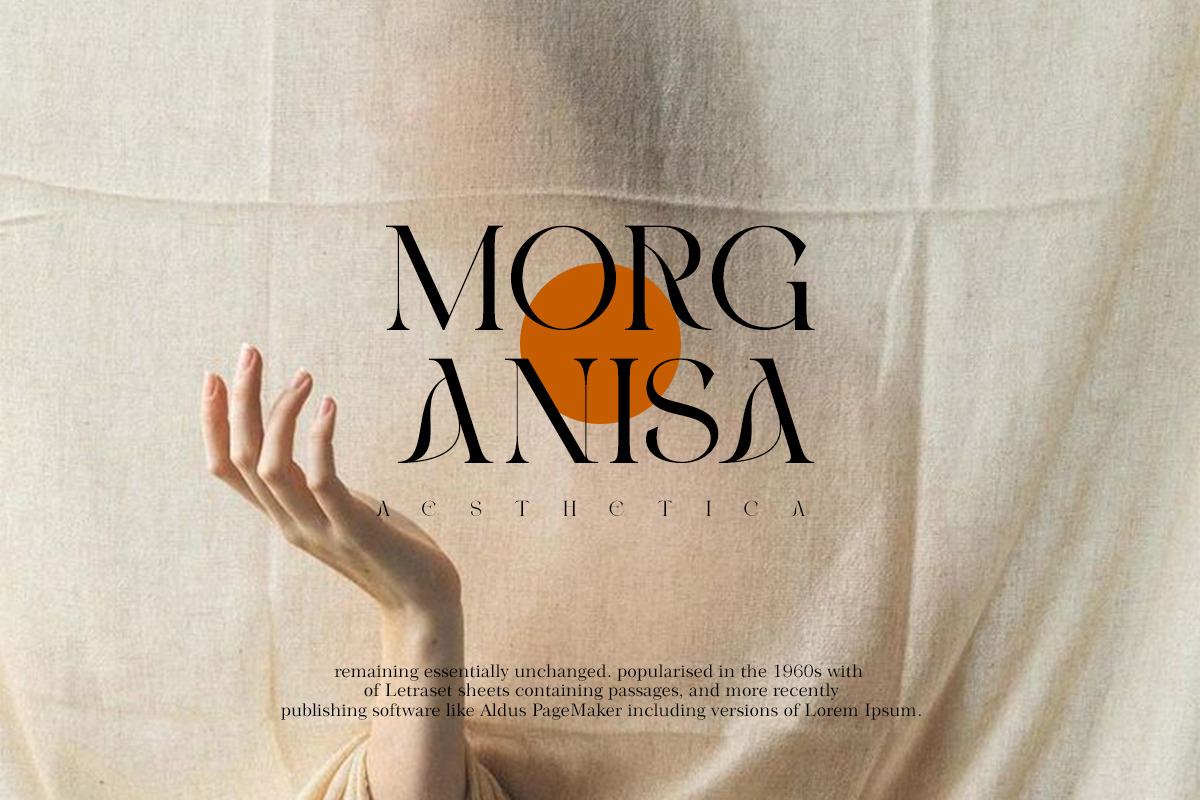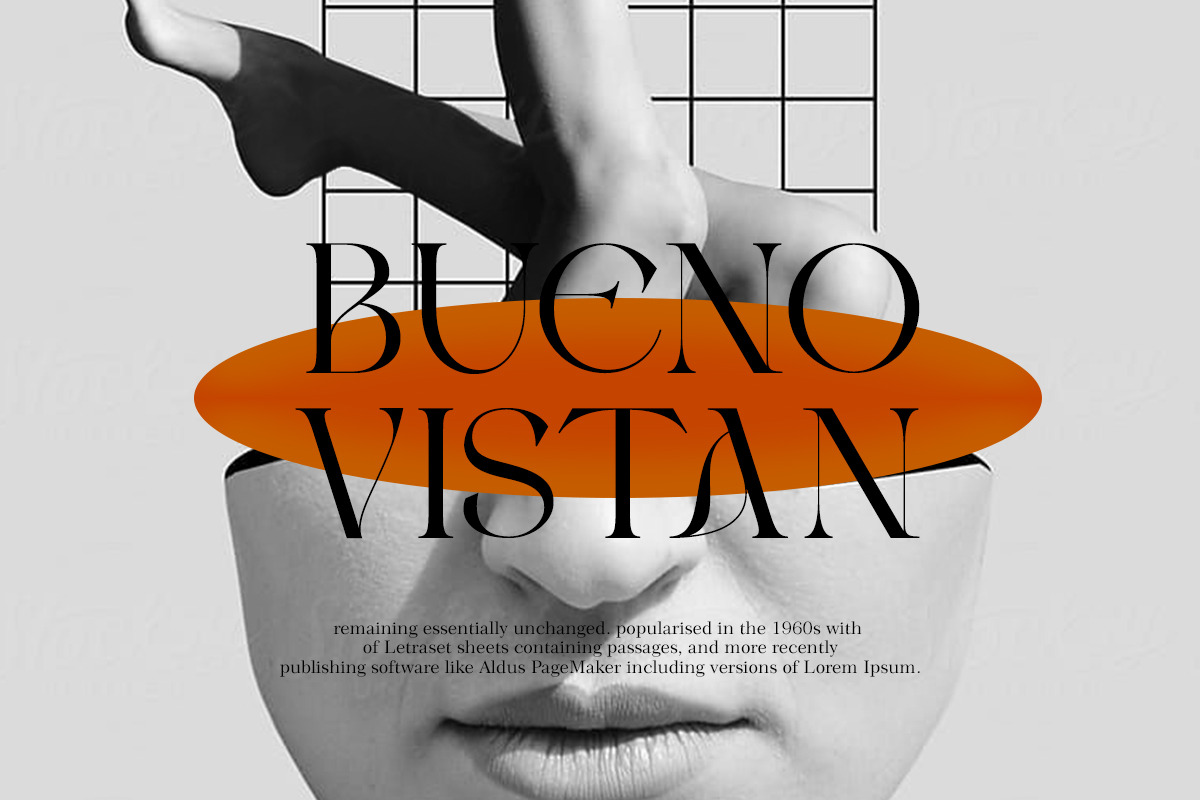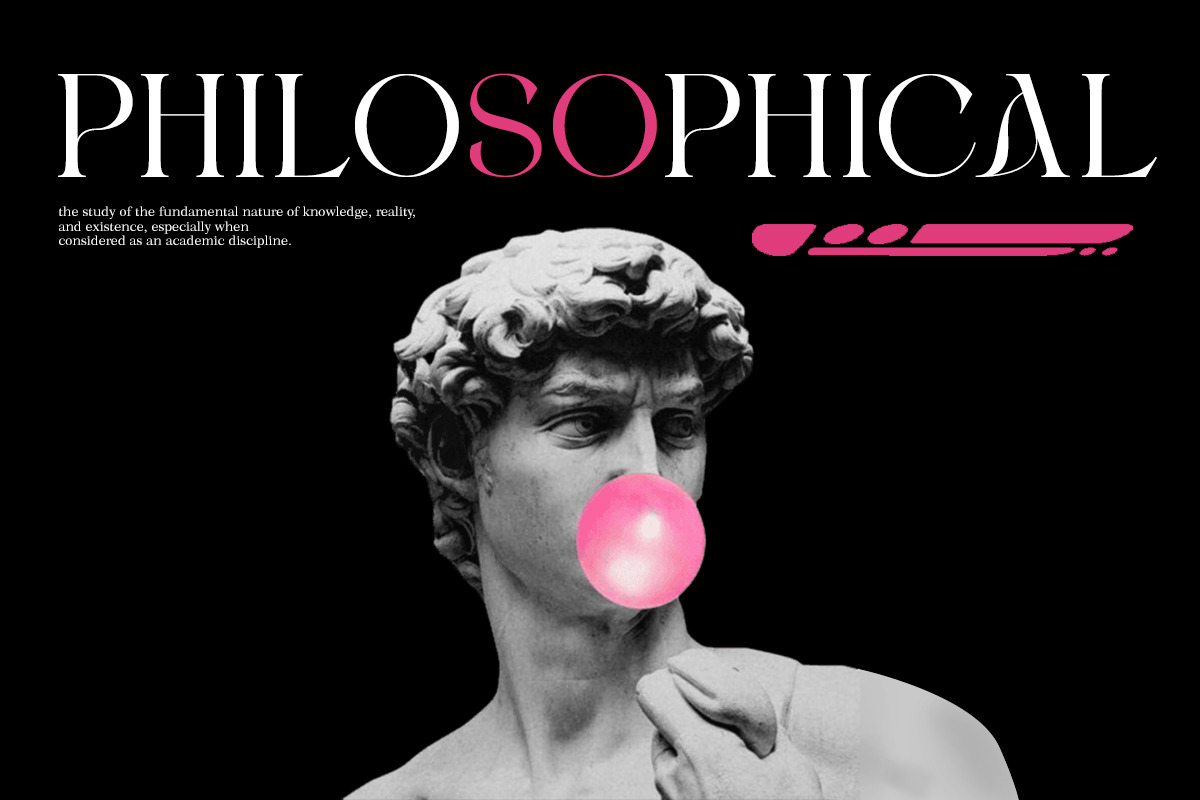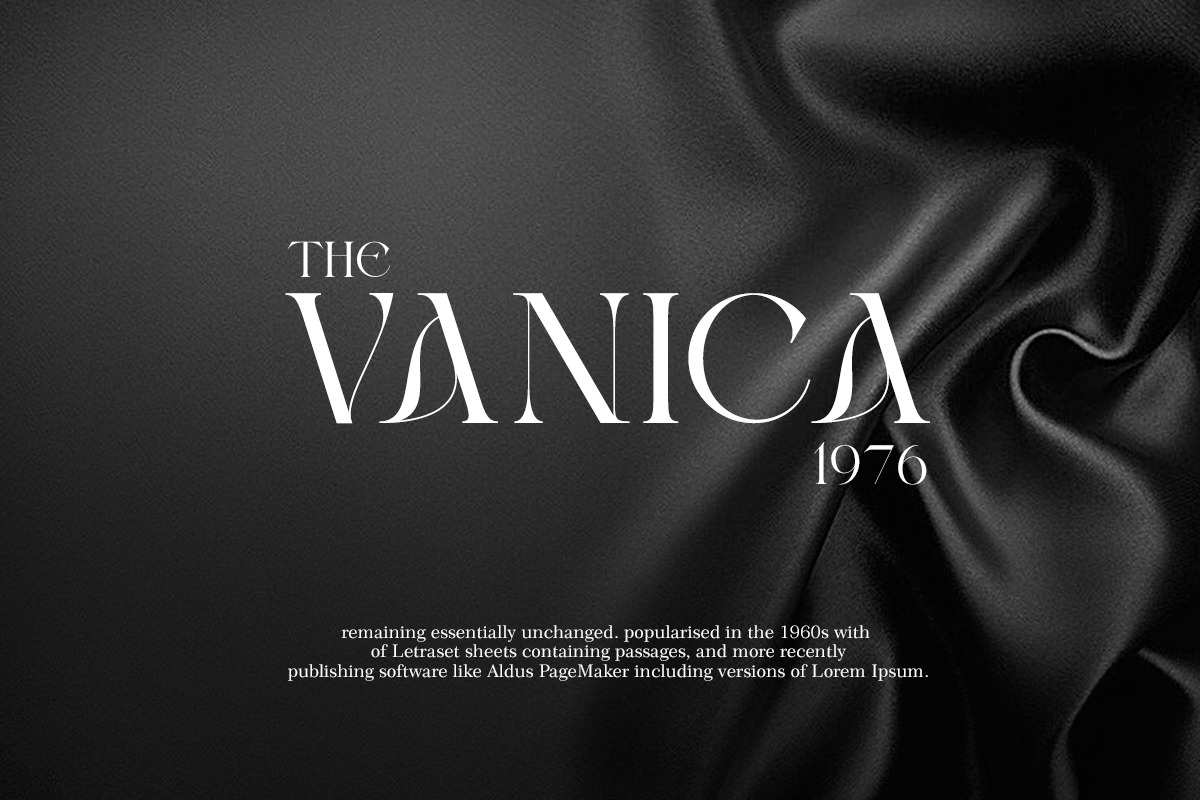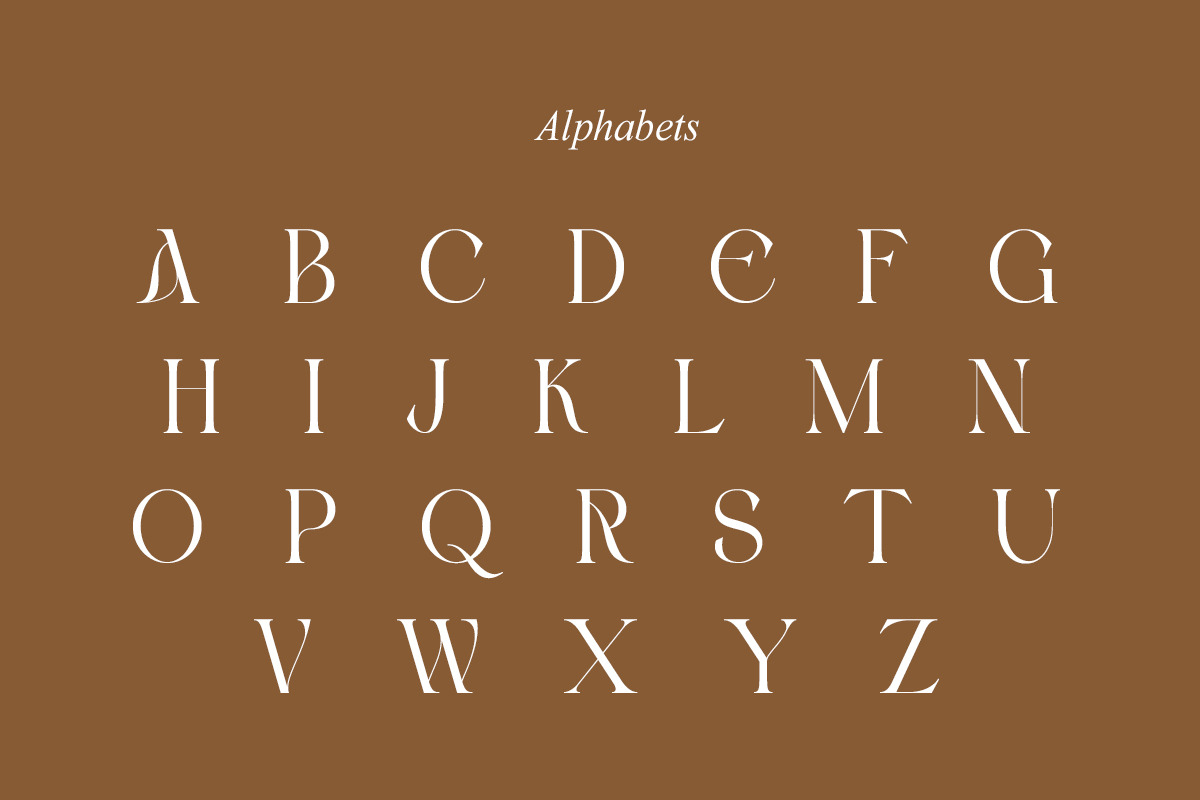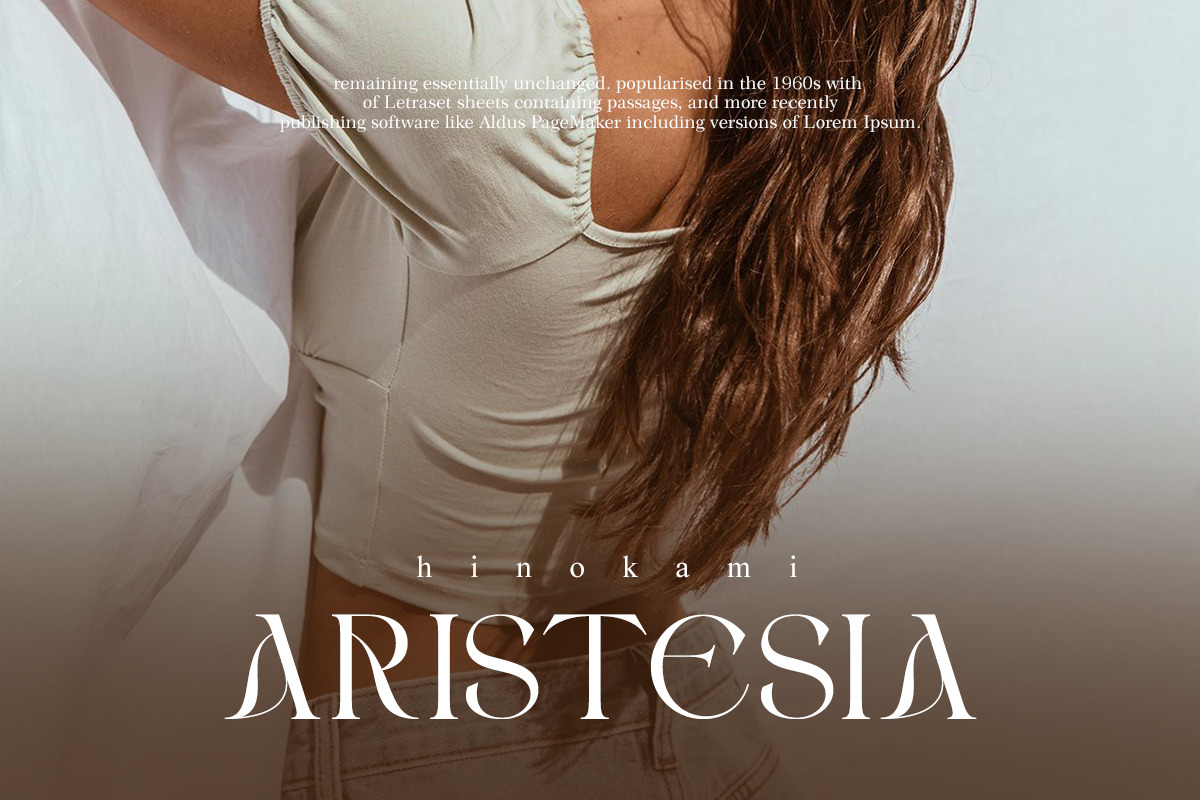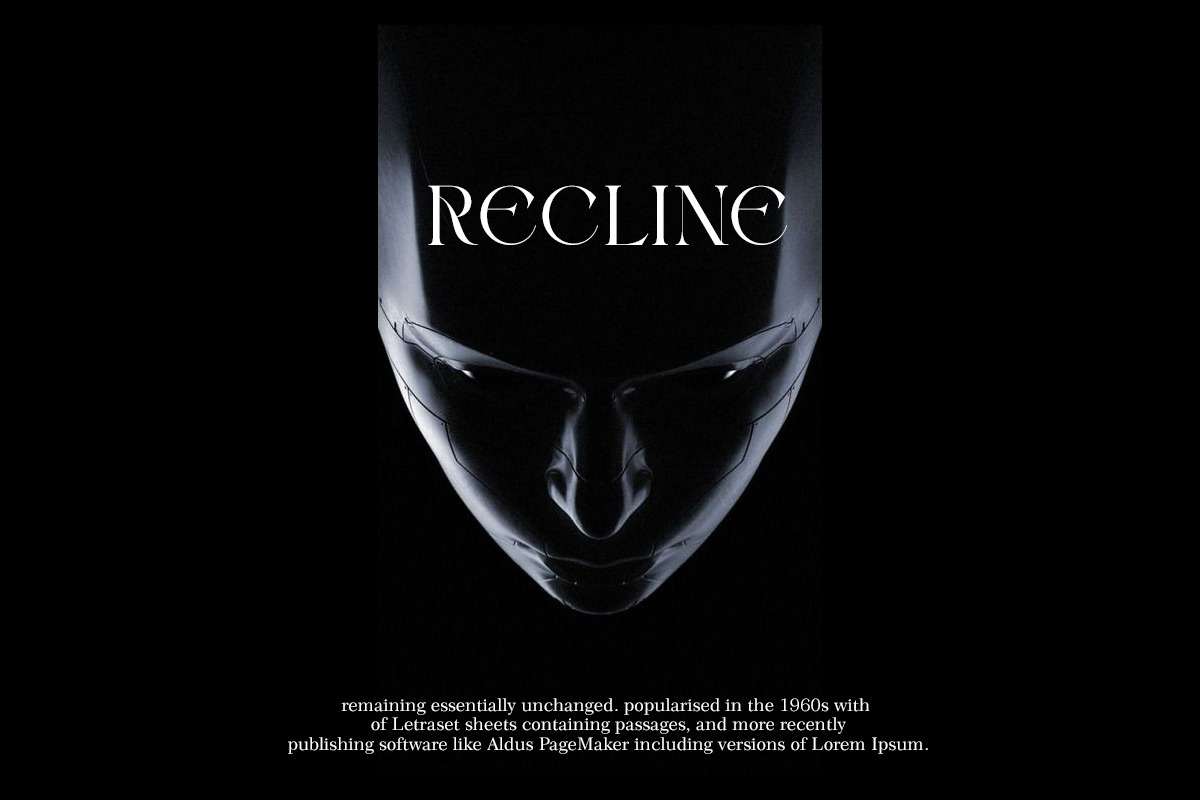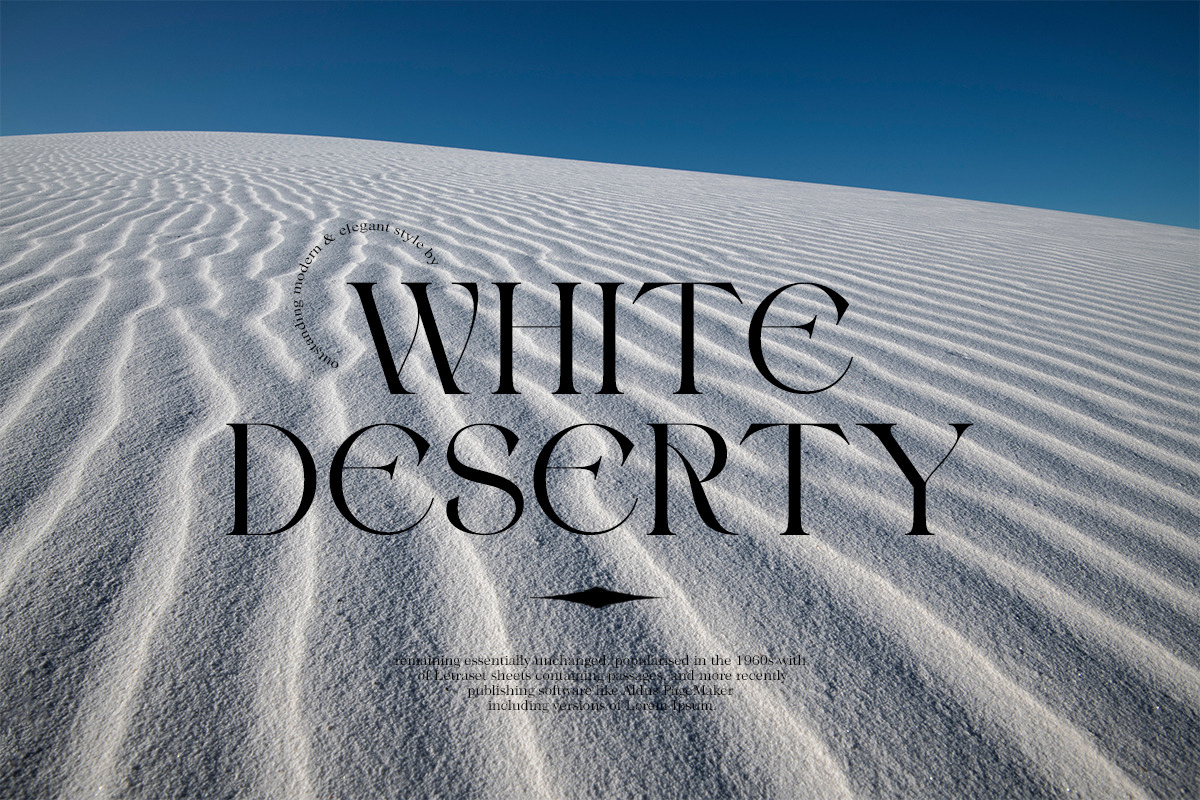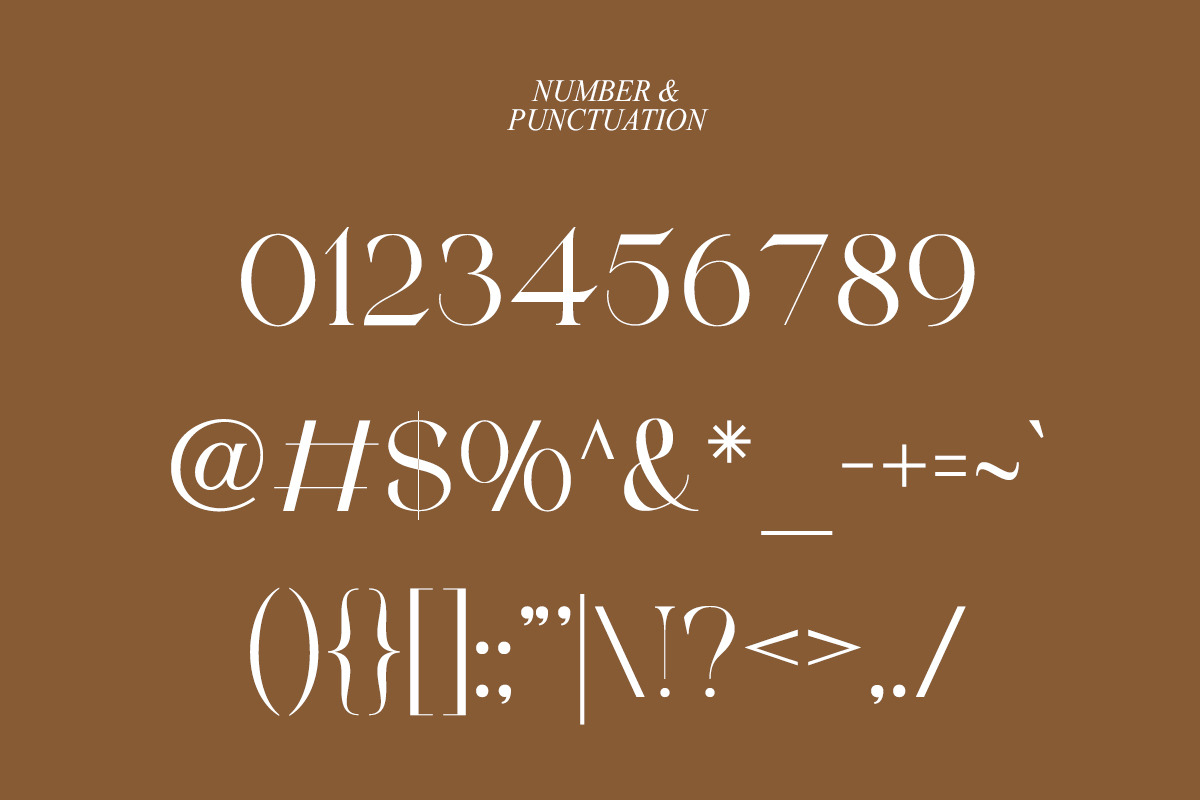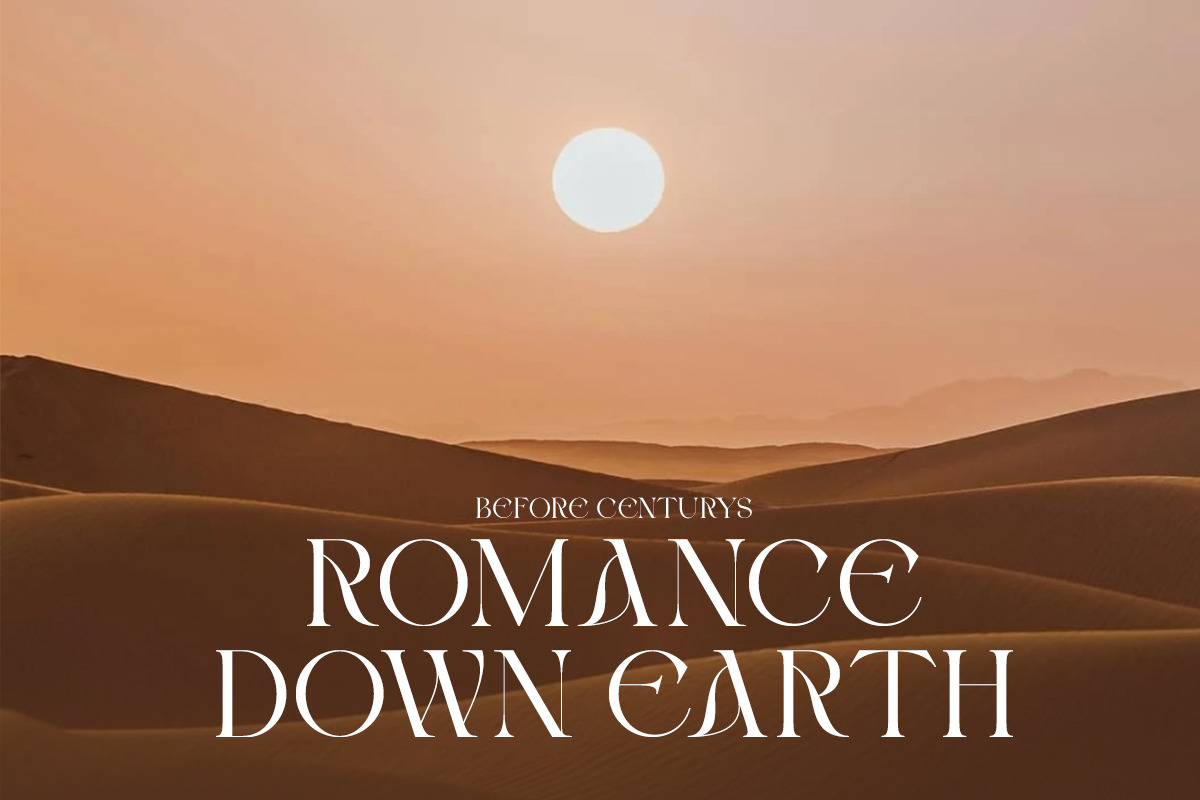
Blacke Brown | Modern Stylish
Blacke Brown fonts include uppercase letters, numerals, a large range of punctuation. Serif font with modern stylish style. Created for poster, web design, branding, illustrations, badges, and some other works.